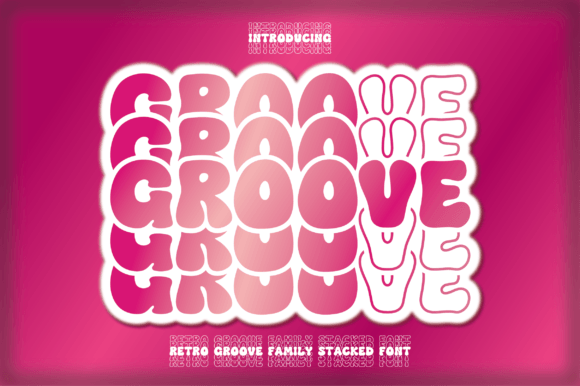
Retro Groove Stacked Font
Retro Groove Stacked is a captivating display font that pays homage to the vibrant era of groovy designs. With bold, stacked letters, it effortlessly evokes nostalgia while adding a modern twist. Perfect for eye-catching headlines, posters, and any project in need of a touch of retro charm.